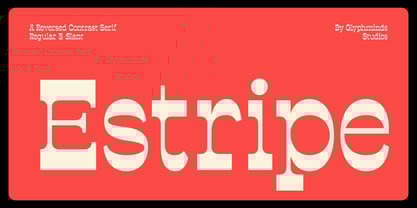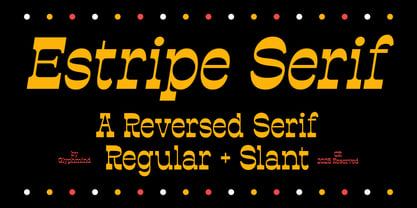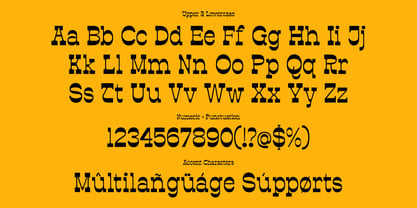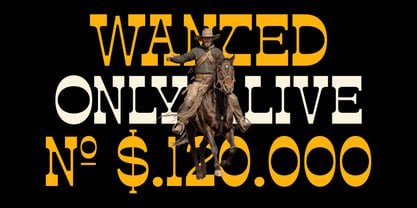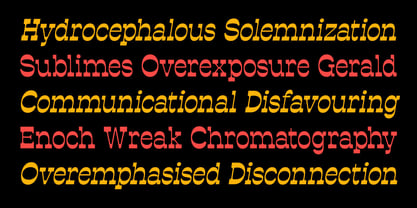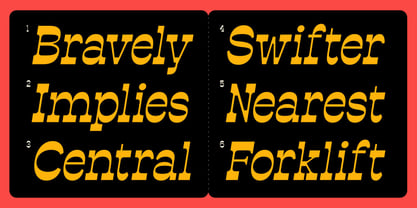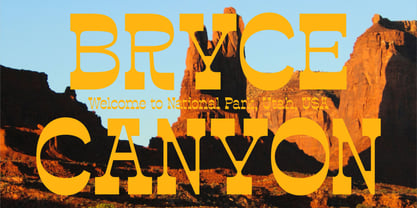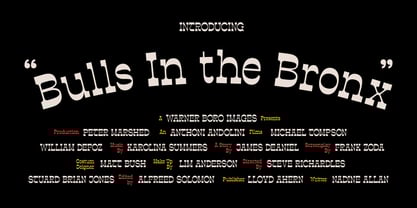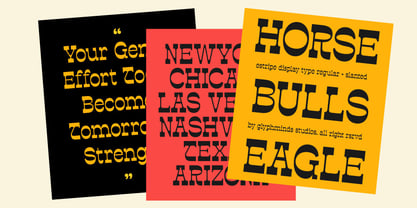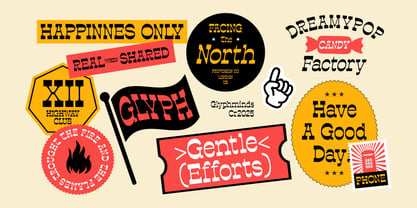
Estripe
by Glyphminds Studios
The Estripe Font Family was designed by Baliya Ibnu Bi Malkan and published by Glyphminds Studios. Estripe contains 2 styles and family package options. More about this family
Step away from the ordinary with Estripe, the Reversed Contrast Serif that turns traditional typography on its head! Estripe features a high-drama, ultra-stylish design, deliberately flipping the conventional serif structure: thick horizontal strokes meet razor-thin vertical stems. This striking reversal creates an unforgettable, almost electric effect, drawing the eye instantly to your titles and logos. Estripe is where vintage charm meets modern luxury. It carries the eccentric flair of classic Italian Old Style fonts, making it the perfect choice for projects that demand attention, sophistication, and a touch of the avant-garde. ✨ What Makes Estripe Irresistible? Reversed Contrast: A unique design feature for high-impact display use. 2 Essential Styles: Includes Regular and Slant (or Italic) for design flexibility. Vintage Luxury: Perfect for high-end fashion, upscale packaging, and editorial mastheads. Dramatic Display: Makes an immediate, memorable statement in branding and titles. If you need a font with undeniable personality and a luxurious edge, Estripe is your signature typeface.
Designers: Baliya Ibnu Bi Malkan
Foundry: Glyphminds Studios